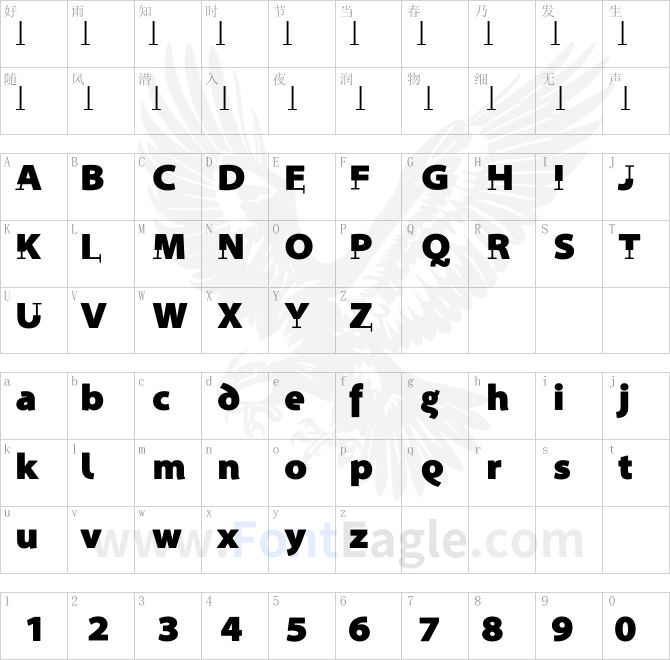
- Font name:Prothesis
Prothesis-Black is a great font, widely used in graphic design, single-page menu design, poster design and other fields, and is deeply loved by designers.Prothesis-Black download.